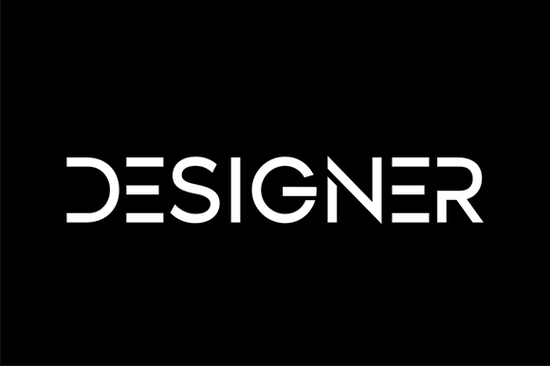
If you have been searching for a typeface that walks the line between professional and friendly, you have likely come across the Designer Font. It is that rare find in the design world that works just as well on a formal wedding invitation as it does on a casual t-shirt for a print-on-demand store. Many crafters and small business owners struggle to find a font that doesn't feel too stiff for social media posts but isn't too messy for a logo. This specific typeface solves that problem by offering a simple, casual display style with an undeniably clean feel.
The neat and beautiful arrangement of letters means you do not have to spend hours tweaking kerning or spacing to make it look right. Whether you are creating a digital planner, a physical sticker sheet, or a branding package for a local coffee shop, legibility is key. This font delivers that clarity without sacrificing personality.
What makes this typeface versatile for different projects?
The main strength of this font lies in its balance. It is not overly decorative, which allows it to shine in both formal and non-formal designs. When you are working on a project that requires trust and clarity, such as a business card or a website header, you need letters that are easy to read at a glance. However, if you want something with too much character, it can sometimes distract from the message.
For example, if you are designing holiday greeting cards, you might usually reach for something with more festive flair, like the Welcome Christmas font. While that style is perfect for December, it limits your usage to one season. In contrast, a clean display font like Designer allows you to create assets that you can use all year round. It provides a neutral but stylish backdrop for your colorful graphics or photos.
Similarly, if you are working on memorial services or tribute videos, you might need something more traditional and somber, such as the Homegoing font. Designer sits in a middle ground; it is respectful enough for serious occasions but light enough for everyday marketing materials. This versatility is crucial for small business owners who need to maximize their budget by buying fewer fonts that do more work.
Where can I use this font in my creative business?
Because the letters are arranged so neatly, this typeface is excellent for print-on-demand (POD) sellers. When printing on fabric, mugs, or tote bags, complex fonts can sometimes lose detail or look blurry. A clean font ensures that your design remains crisp even when printed on textured surfaces.
Here are a few specific ways you can apply this font:
- Logo Design: Its clean lines make it perfect for minimalist logos where the brand name needs to be the hero.
- Social Media Quotes: Create shareable Instagram posts where the text needs to be readable over a busy background image.
- Packaging Labels: Use it for handmade soap labels or candle jars where a "clean feel" suggests high-quality ingredients.
- Wedding Stationery: From save-the-dates to menu cards, the formal yet casual vibe fits modern wedding themes perfectly.
Seasonal projects often call for specific themes. If you are designing for a summer beach party, you might typically choose the Laguna Tropic font to get that vacation vibe. However, if your summer brand is more about a boutique clothing line than a tiki bar, Designer offers a sophisticated alternative that still feels light and airy.
How does it compare to other display fonts?
Understanding the difference between display fonts helps you choose the right tool for the job. Display fonts are meant for headlines, not long paragraphs of text. Designer excels here because it avoids the extremes found in other categories.
Take athletic wear, for instance. If you are designing a jersey or a team banner, you would likely use the Sports Varsity font because of its bold, aggressive slant. Designer lacks that aggression, making it much softer and more approachable for lifestyle brands, wellness coaches, or home decor businesses. It invites the reader in rather than shouting at them.
Furthermore, readability is a major factor. While fun, bubbly fonts like Strong Bubble are great for children's products or toy packaging, they can be difficult to read quickly. Designer maintains a standard structure that ensures your audience understands your message immediately, which is vital for conversion rates on sales pages or product listings.
Tips for pairing and customization
To get the most out of Designer, consider how you pair it with other elements. Since the font itself is simple, you can afford to be bold with your colors. A dark charcoal text on a pastel background looks stunning, as does white text on a deep navy.
If you need to add emphasis, try using italics if the font family supports it, or simply increase the letter spacing (tracking). Adding extra space between the letters can make the font feel more luxurious and high-end, which is a great trick for luxury branding. You can also pair it with a simple sans-serif font for body text to create a modern, clean hierarchy.